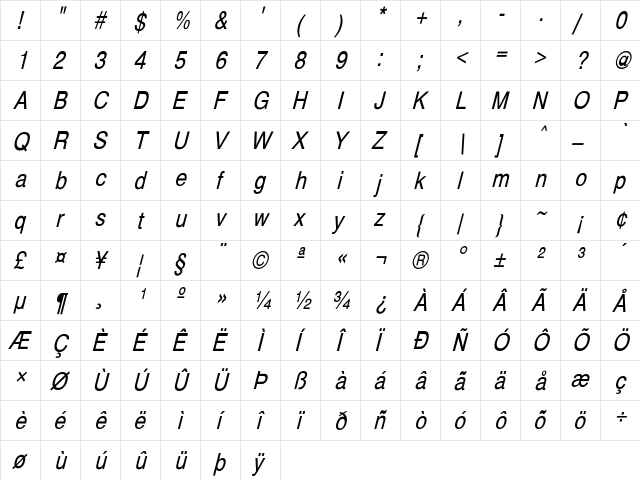
HelveticaCndObl-Normal Regular Font Preview
HelveticaCndObl-Normal Regular
Design Context for HelveticaCndObl-Normal Typeface
HelveticaCndObl-Normal offers clean, dependable letterforms without strong stylistic allegiance, making it a practical choice for designers who need flexibility.